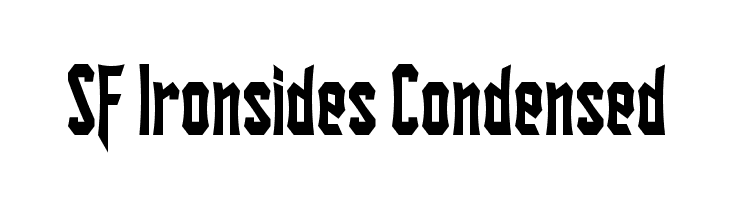
A bold, extended, and oblique font with a modern and dynamic style.
A bold, oblique, and condensed font with a modern, gothic-inspired style.
A bold, gothic-style font with a shaded, three-dimensional effect.
A bold, oblique font with a shaded, three-dimensional Gothic style.
A bold, angular font with sharp edges and a geometric structure.
A bold, angular font with a futuristic and industrial aesthetic.
A bold, italicized font with sharp, angular design and dynamic slant.
A bold, angular, and condensed font ideal for impactful headlines.
A bold, condensed italic font with a dynamic and angular style.
A bold, angular font with strong geometric shapes and exaggerated serifs.